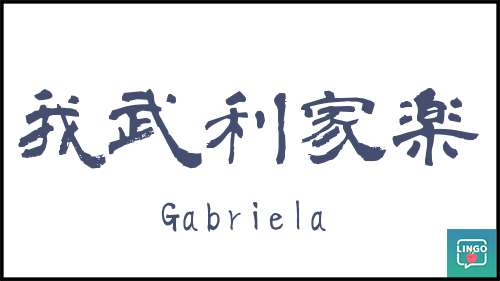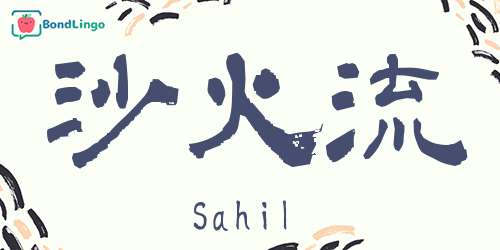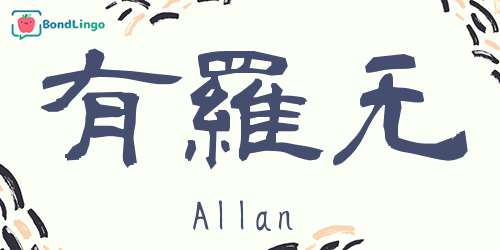
Japanese Calligraphy Font Generator
Japanese kanji tattoo generator the following tool will convert your text in horizontal vertical writing to 3 professional japanese fonts for japanese kanji tattoo designs kanji t shirts signboards billboards kanji tombstone karatejudo belt website design anime transcripts etc.
Japanese calligraphy font generator. Kanji is a japanese writing system based on modified chinese characters. It is the language spoken by japanese people in japan as well as japanese communities in other countries. Calligraphy generator calligraphy is a visual art related to writing.
For those who want to get japanese kanji tattoo designs t shirts karatejudo belt book covers product packaging etc using japanese kanji fonts well translate your words or phrases into japanese symbols designed with 3 different japanese calligraphy fonts and japanese kanji stencils you select. Kanji fonts generally support the four major writing systems used in japan. Just like how it is said that writing expresses ones personality the way that the same text and words are conveyed differs according to the font usedone of the differences between us and other competitor sites is that customers can choose three types of fonts out of 50 types of morisawa fonts used by japanese professional designers.
Hiragana katakana kanji and romaji. You can copy and paste these fonts into social media posts bios etc. It is the design and execution of lettering with a broad tip instrument brush or other writing instruments.
It produces 6 different japanese style text fonts including the classic full width vaporwaveaesthetic styles and three different extra thicc text styles. Kanji hiragana and katakana. This is the free version so it only comes with 1006 education kanji characters calligraphy regular script.
To get that aesthetic feel or just for fun. Welcome to the most complete japanese text generator on the internet. Japanese font and kanji generators.
If you have an opportunity to create your own website business and private or printables and you want to add japanese calligraphy characters or kanji there are several japanesekanji font generators available online. Kanji is the japanese name for chinese logographic characters. The japanese writing system combines three separate scripts.